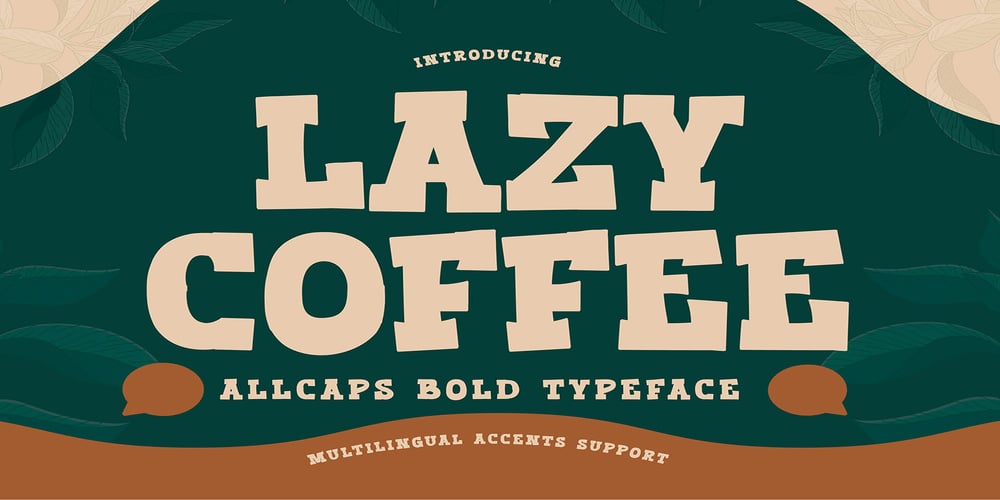
Lazy Coffee Font Family was designed by Abdul Malik Wisnu, Anang Fibriyanto and published by Gassstype. Lazy Coffee contains 1 styles and family package options. Hello Everyone, introduce our new product Font Hello Everyone, introduce our new product Lazy Coffee is All Caps Bold Typeface Serif Display , inspired by the title of the sports poster and We make it very energetically. Lazy Coffee font with strong and challenging nuances. very suitable for the title, typography, Poster, magazines, brochures, packaging,Websites and much more for your design needs, making your designs more modern and professionalThis handmade font will make your design has a beautiful natural touch for each details. It is perfect for any design project as Invitation,logo, book cover, craft or any design purposes.That is has charming, authentic and relaxed characteristic more natural look to your text.